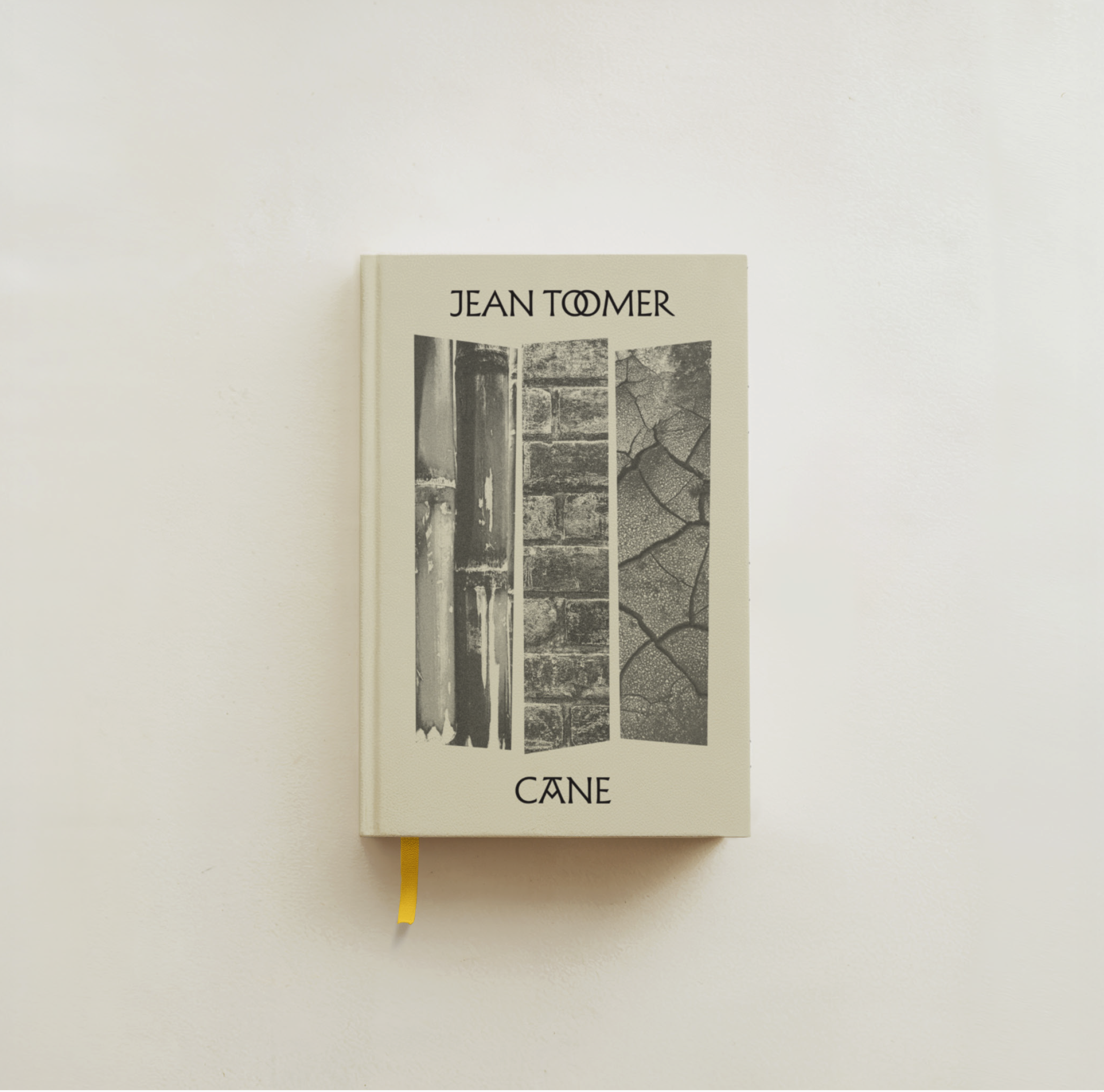
Jean Toomer’s Cane (1923) gathers short stories, poems, and a closing play into three parts that move from the rural South to the urban North and then toward a reckoning. The form shifts with the settings, letting brief scenes, songs, and dialogue carry the rhythms of work, memory, and desire. The book reads as a crossing of places and voices rather than a single continuous plot.
Headlines and section numbers are set in Albertus Nova, a contemporary revival of Albertus, and the body uses VTC Wolpe, derived from Pegasus, both by Berthold Wolpe. A German Jewish type designer, Wolpe fled Nazi Germany in 1935 and settled in London, where he built a career designing typefaces and book covers. The pairing reflects how Harlem Renaissance typography blends German-American and African American aesthetics, a lineage that runs through Aaron Douglas, widely regarded as the first Black graphic designer in the contemporary sense, who studied with the German designer Winold Reiss.
Type
Title and headers: Albertus Nova Thin and Regular
Body text: 11/16 VTC Wolpe